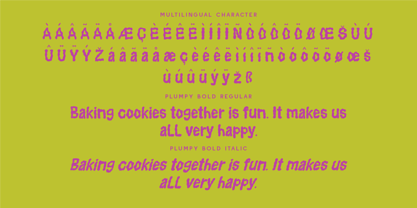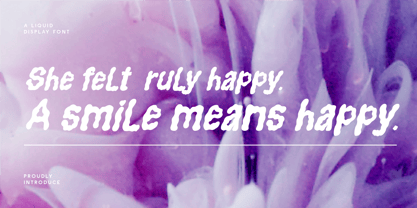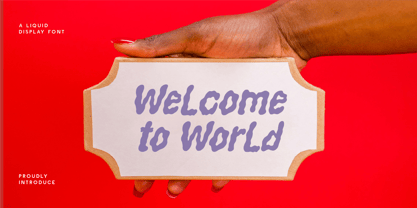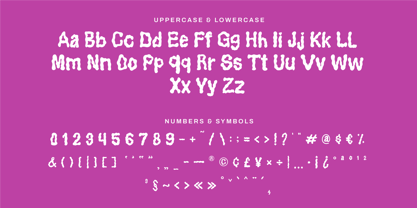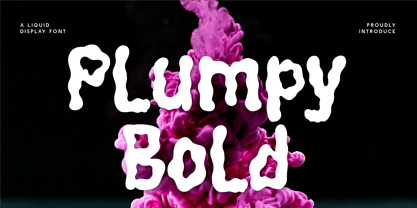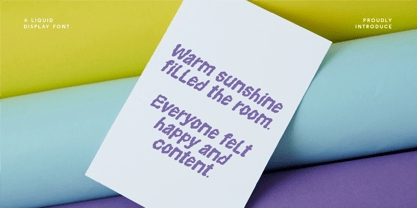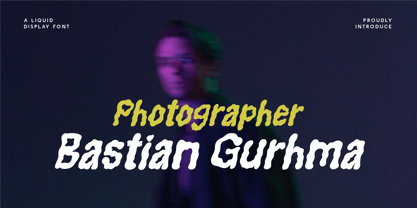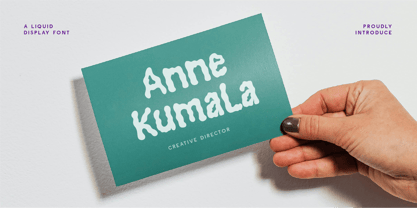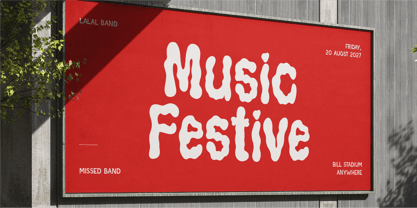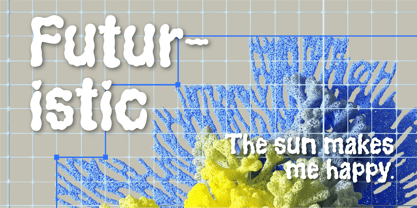
CF Plumpy Bold
The CF Plumpy Bold Font Family was designed by Gilang Mei Nugraha, Frederik Aristaputra and published by Indotype. CF Plumpy Bold contains 2 styles and family package options. More about this family
Plumpy Bold – A Fluid and Bold Liquid Display Font
Dive into creativity with Plumpy Bold, a striking display font inspired by the freeform beauty of liquid movement. With its blobby shapes, wavy lines, and organic flow, Plumpy Bold delivers a bold yet playful presence that's impossible to ignore.
Designed to grab attention, this font is perfect for branding, poster headlines, festival graphics, experimental design, album covers, creative merchandise, or any project that craves a dynamic and fluid vibe.
Its unique texture mimics flowing ink or melting forms, creating a surreal and modern statement in every word.
Why Choose Plumpy Bold?
- 🌊 Liquid-Inspired Design: Organic, wavy letterforms that feel alive and dynamic.
- 🎨 Perfect for Bold Concepts: Ideal for standout branding, posters, or music visuals.
- 🔥 Experimental and Modern: Great for projects seeking edgy and artistic impact.
- 📚 Strong Legibility: Even with its wild forms, it maintains easy readability.
- 🌍 Multilingual Support: Includes numbers, punctuation, and wide language coverage.
- Standard Character A-Z, a-z, 0-9, Punctuation & symbols
- Regular and Italic